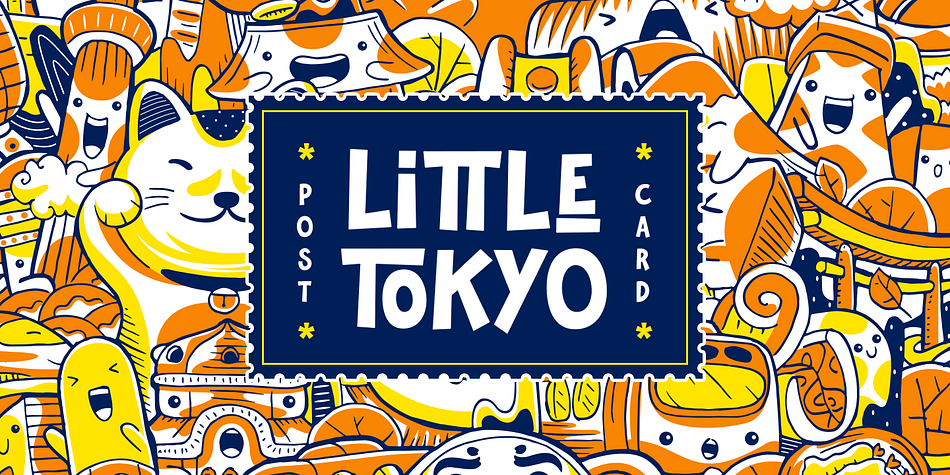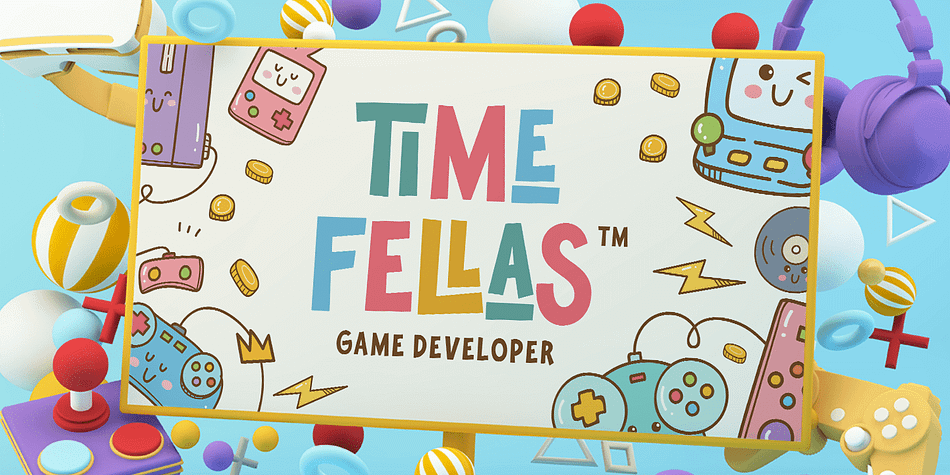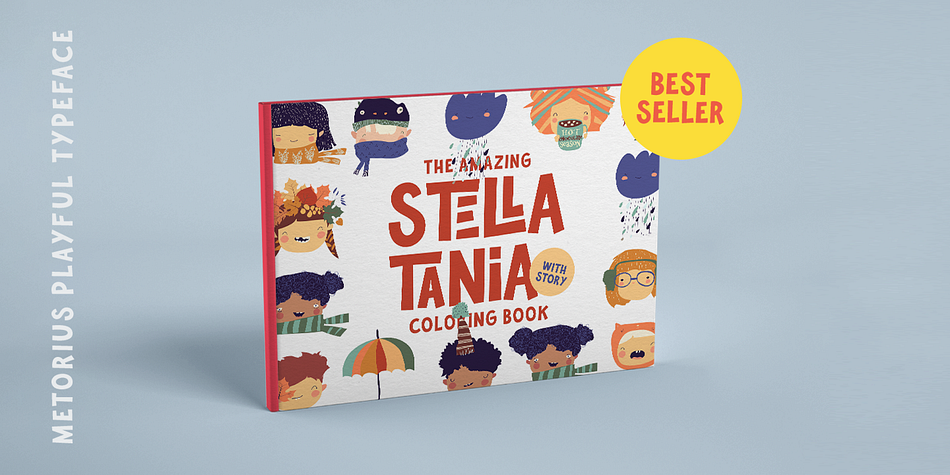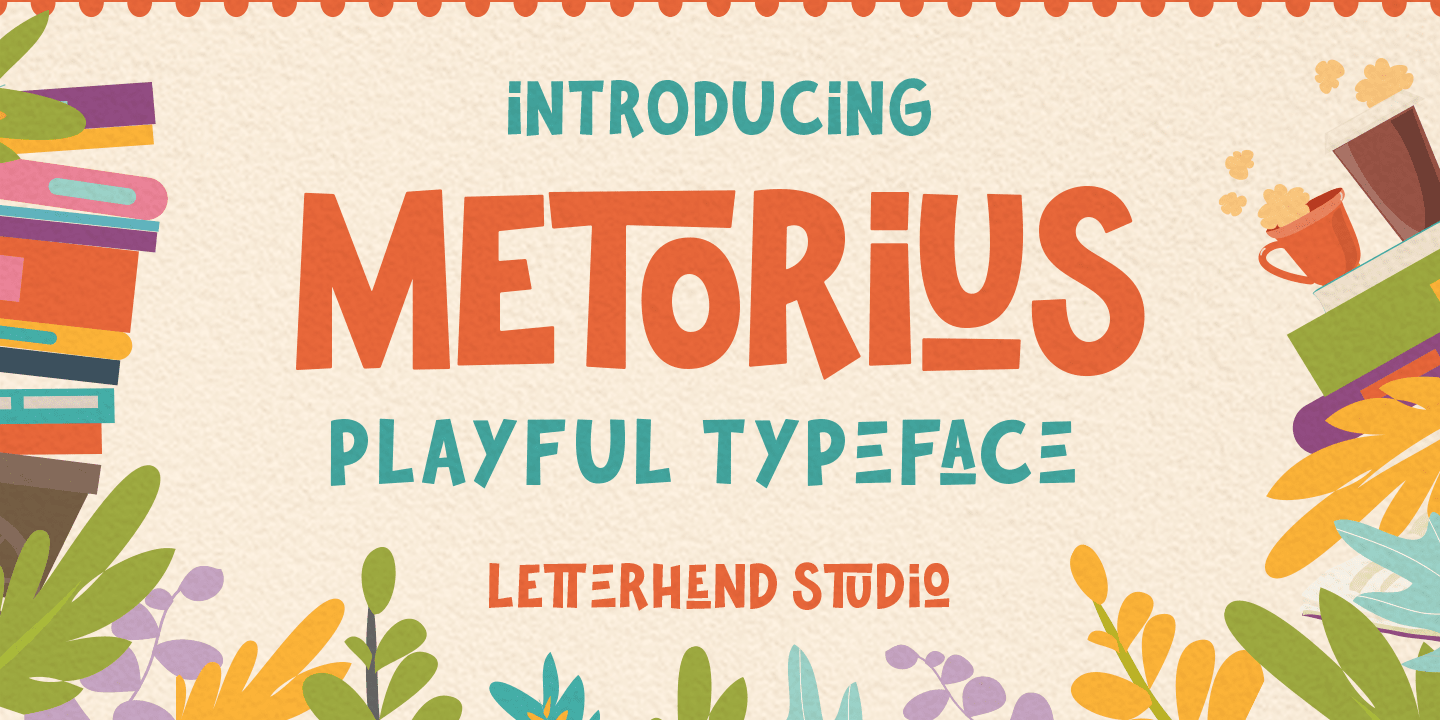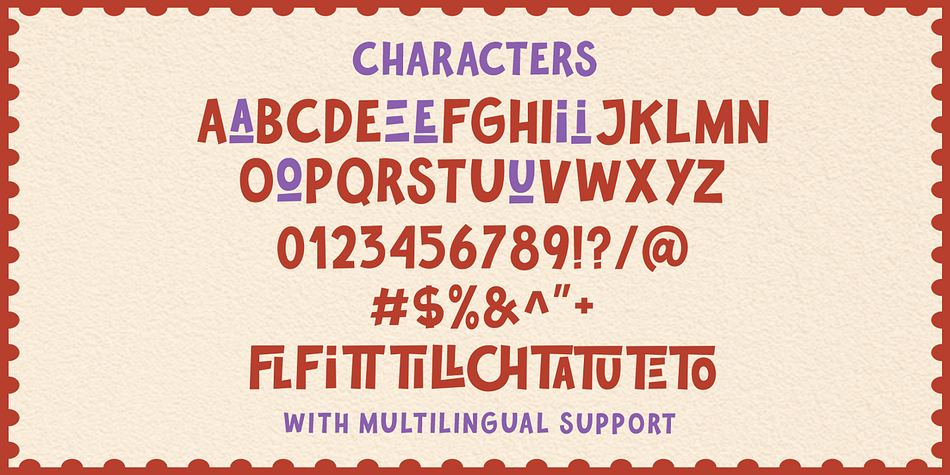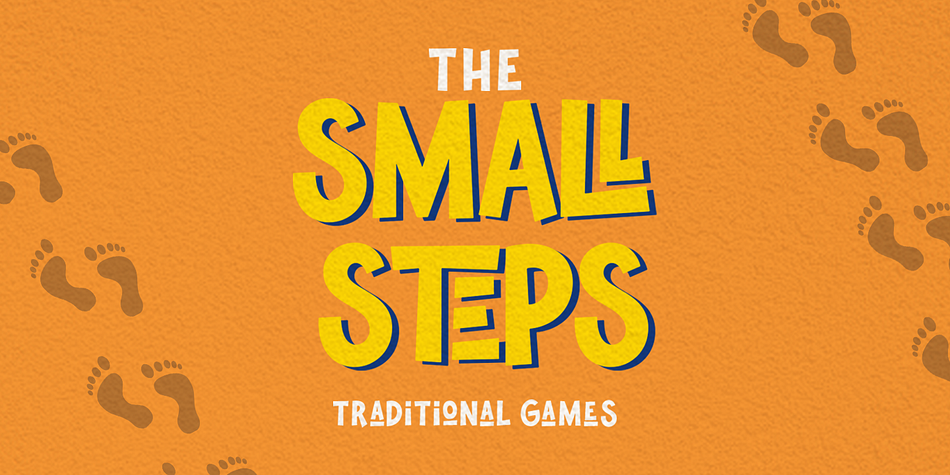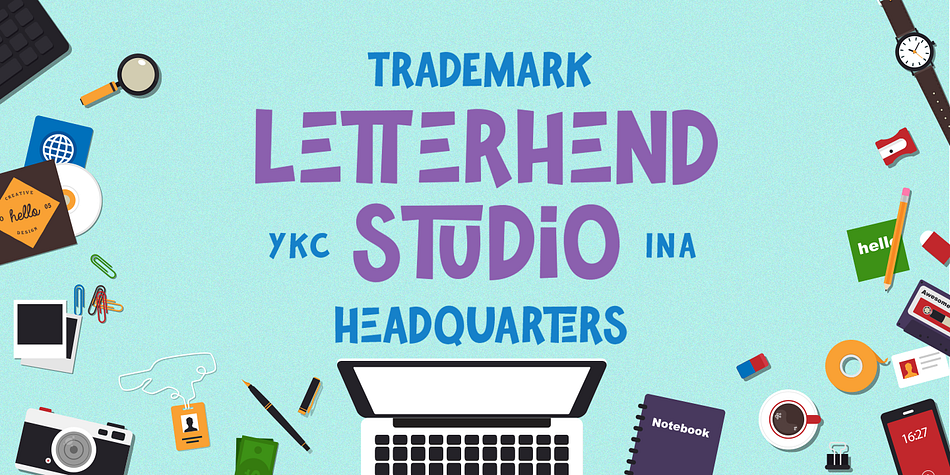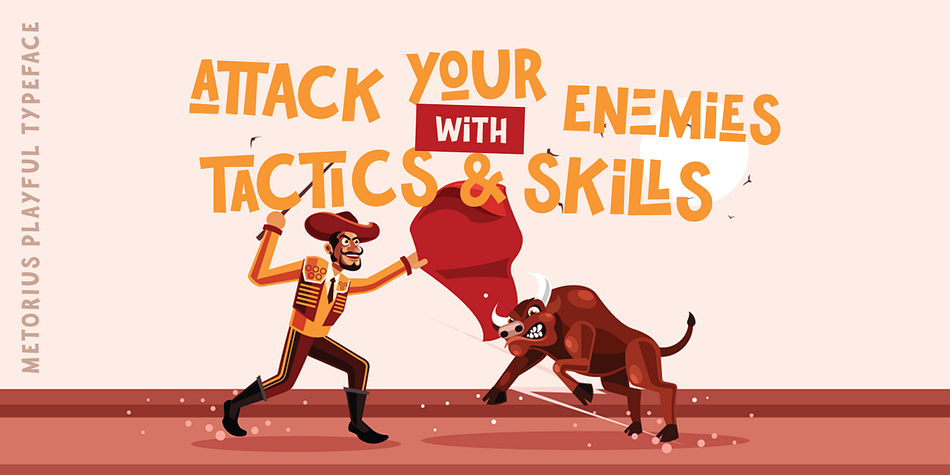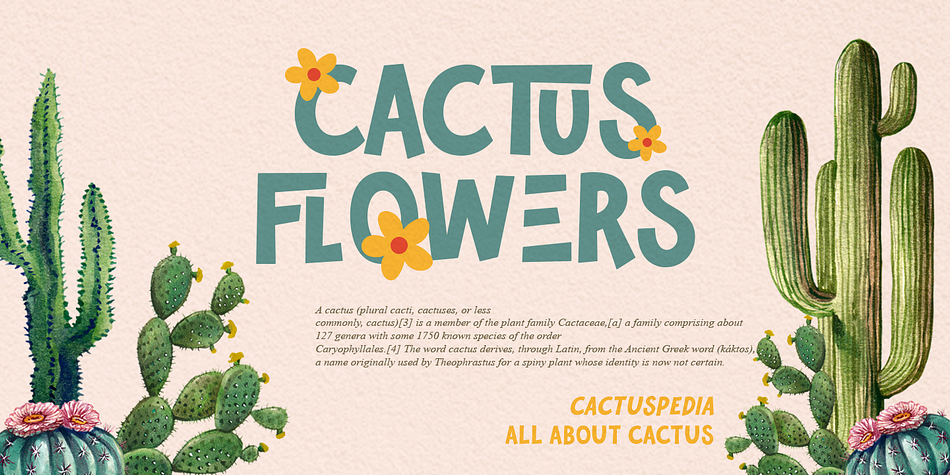
Metorius
Designed by Hendry Juanda, Metorius is a hand display and hand drawn font family published by Letterhend Studio.
Metorius is a typeface with fun and playful looks. This type of font perfectly made to be applied especially in storybook children or child theme which is need a standout font, and the other various formal forms such as invitations, labels, logos, magazines, books, greeting / wedding cards, packaging, fashion, make up, stationery, novels, labels or any type of advertising purpose.